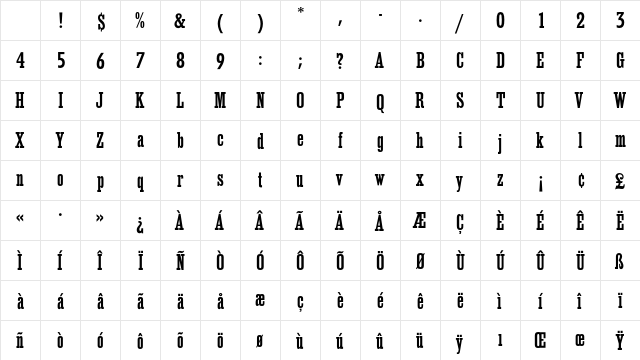
Complete EgyptienneEF MediumCond glyph index. Displaying only characters natively supported by EgyptienneEF MediumCond font.
EgyptienneEF is a composed and adaptable typeface that performs quietly and consistently across a wide range of design contexts. Its narrow stance lets it pack a punch even in space-constrained designs.